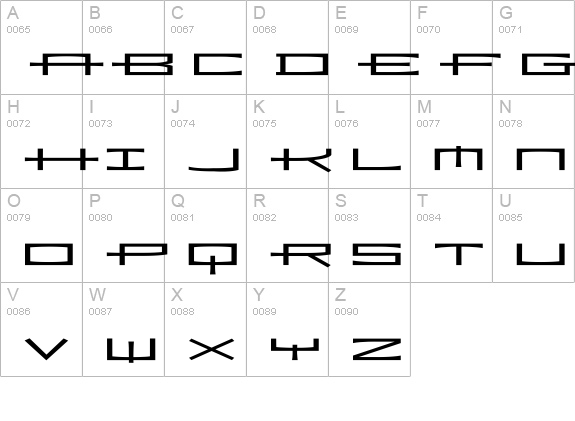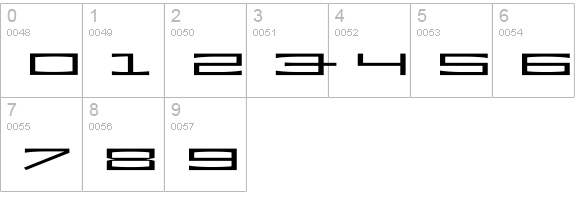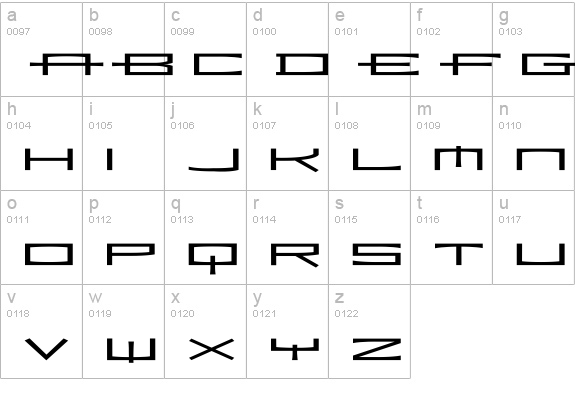
Ramiz-Extended Font Details
Ramiz-Extended is a distinctive, extended-width variant in the Ramiz typeface family \xE2\x80\x94 well suited to design and typography projects.
Introducing Ramiz-Extended, a captivating and versatile font that is sure to leave a lasting impression. With its sleek and modern design, this font is perfect for a wide range of projects, from branding and logo design to advertising and web graphics. The Ramiz-Extended font boasts an extended character set, offering a vast array of glyphs and symbols to accommodate diverse typographic needs. Its clean lines and balanced proportions give it a polished and professional look, making it ideal for both digital and print media. But what truly sets Ramiz-Extended apart is its availability as a free download. That's right, this exceptional font can be yours without spending a dime. Simply head over to FontsMarket.com, the go-to destination for font enthusiasts, and you'll be able to freely access and download Ramiz-Extended. With its generous licensing terms, Ramiz-Extended allows you to unleash your creativity without any constraints. Whether you're a professional designer or an aspiring artist, this font provides you with the freedom to explore endless possibilities. So why wait? Elevate your designs and make a statement with Ramiz-Extended. Download it for free today at FontsMarket.com and unlock a world of typographic excellence.